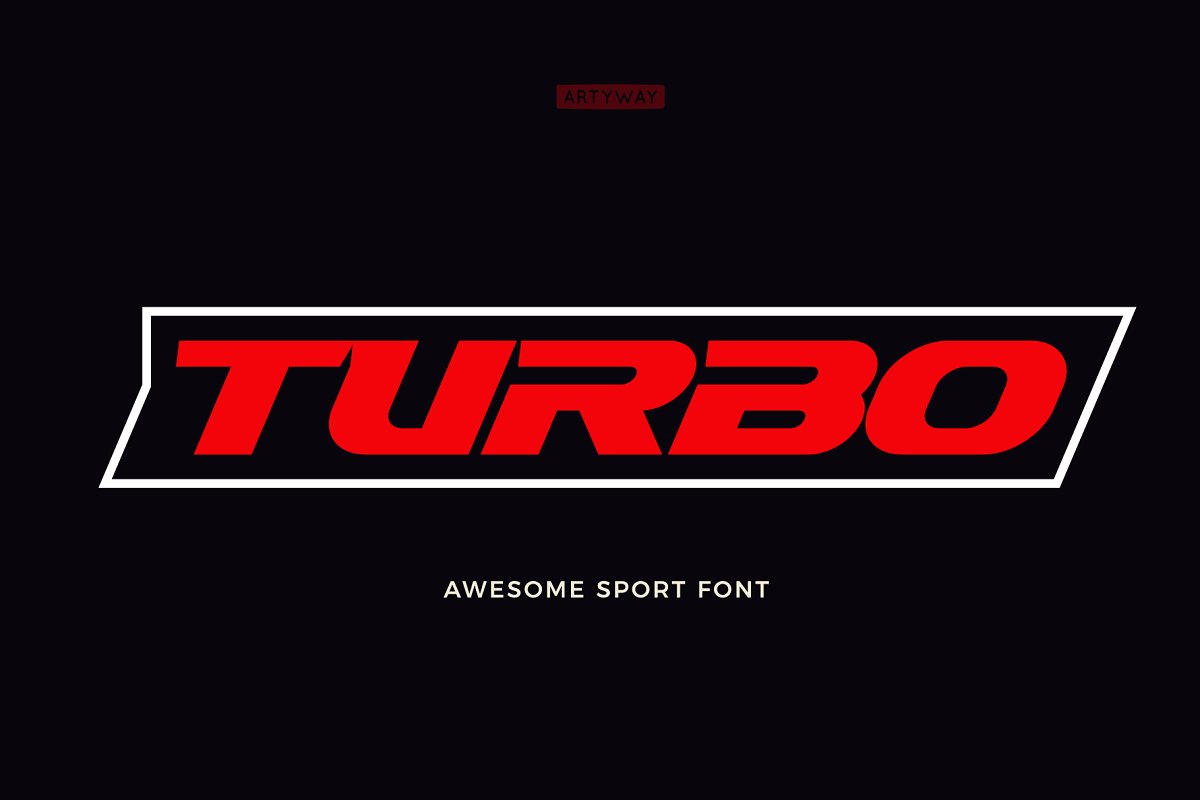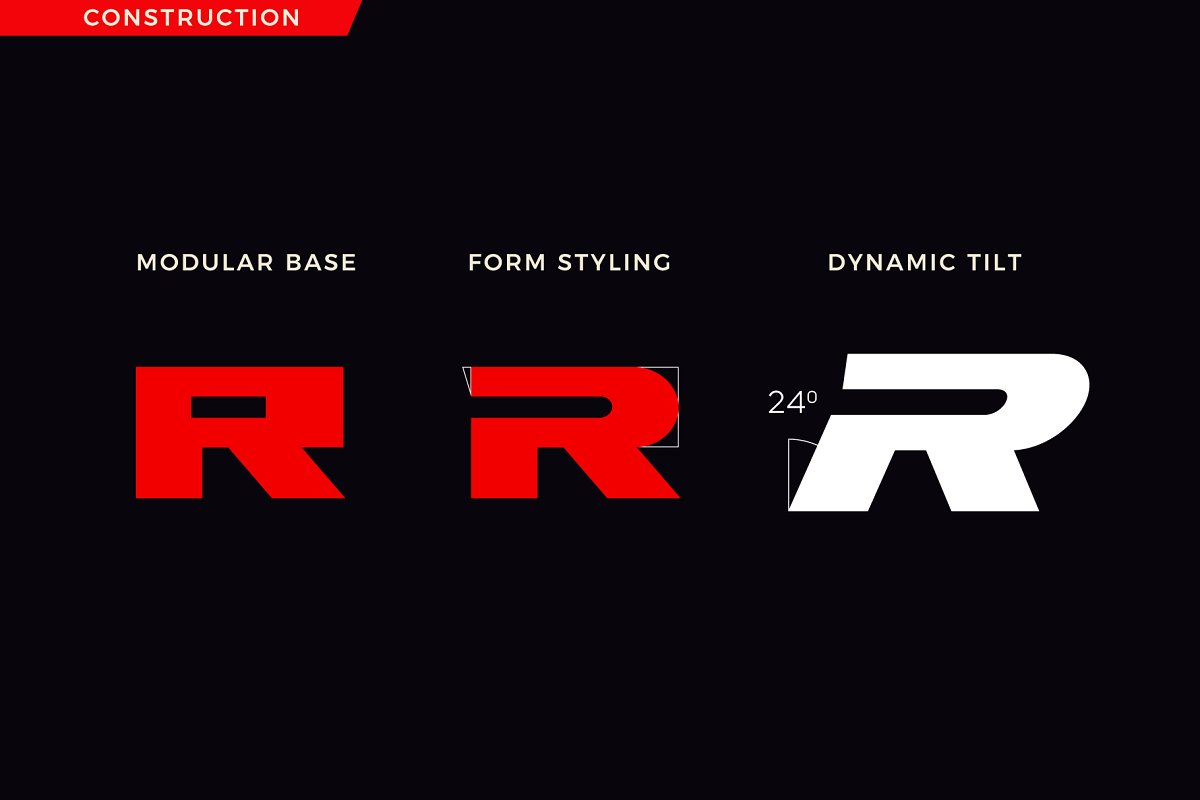
About the Turbo Headline Font
Awesome sport font with italic wide letters, modern letter cutout and dynamic slant, Ideal for sports headline of speed car race, logo and monogram of automotive game or other modern dynamic textFont Turbo compares favorably with its readability and massiveness, creates the effect of power and speed, Designed as your favorite font speed , but with a slightly different font design, check it